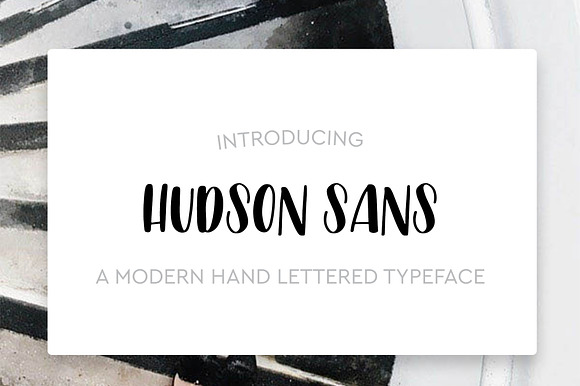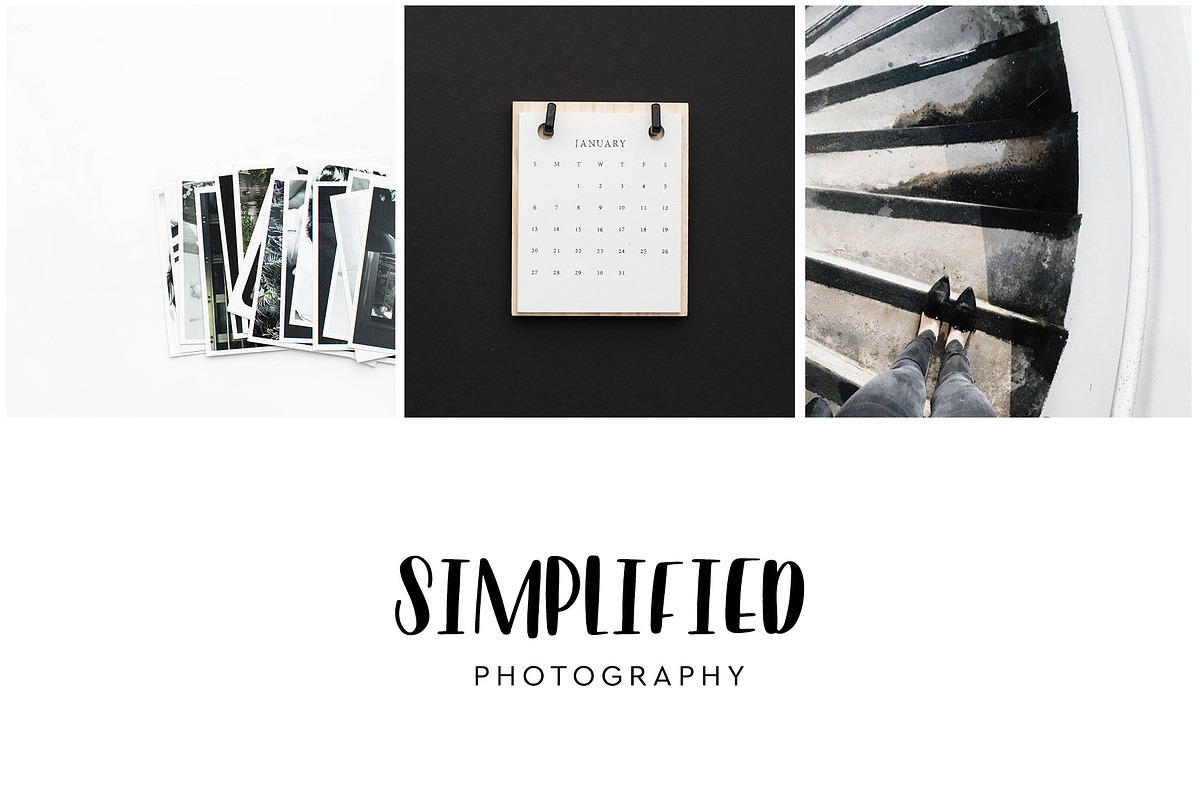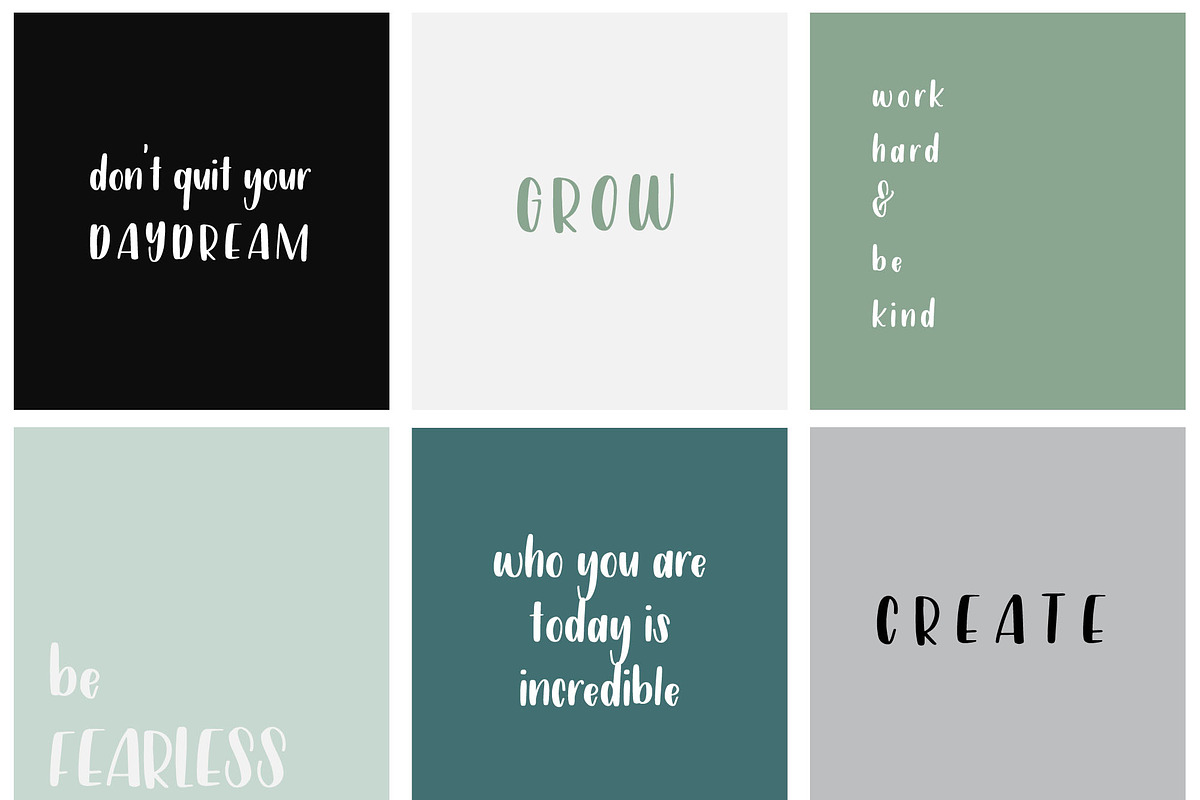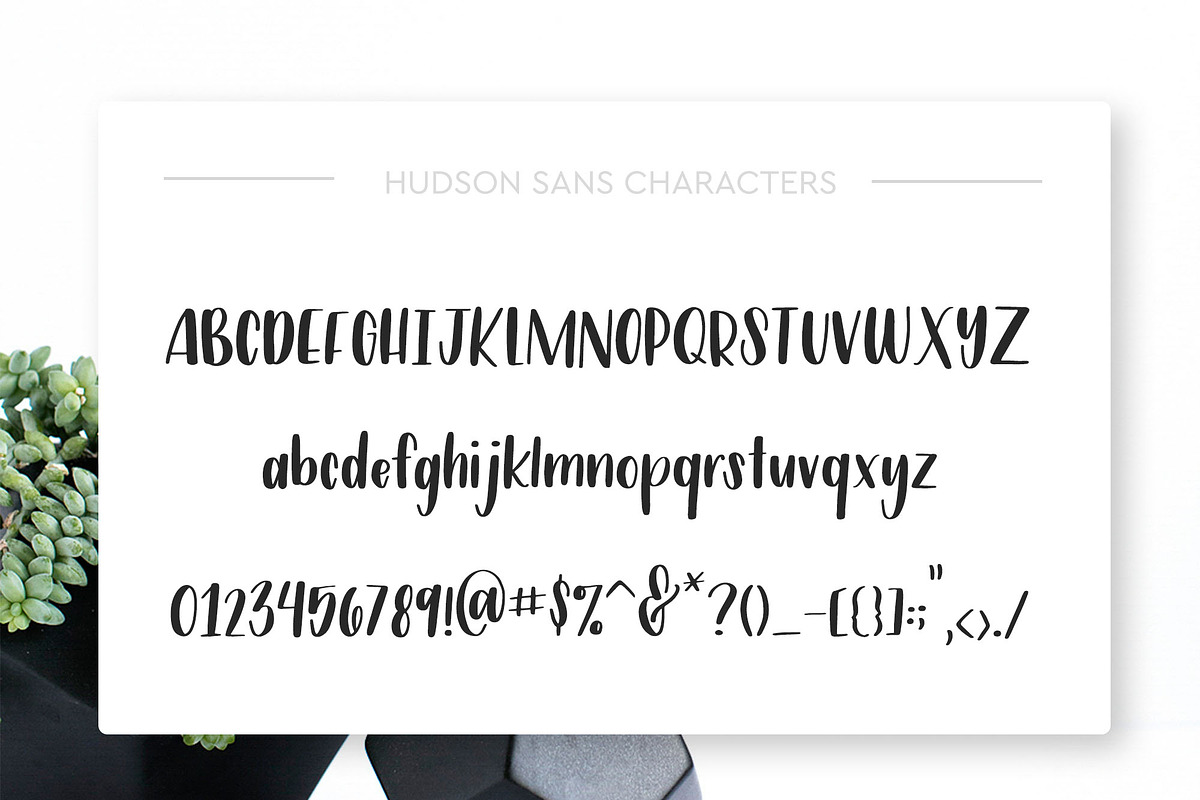
Hudson Sans Hand Lettered Typeface
Hudson Sans is a lovely handwritten font that includes uppercase, lowercase, numbers, and basic english symbols. Feel free to give it a test run below!